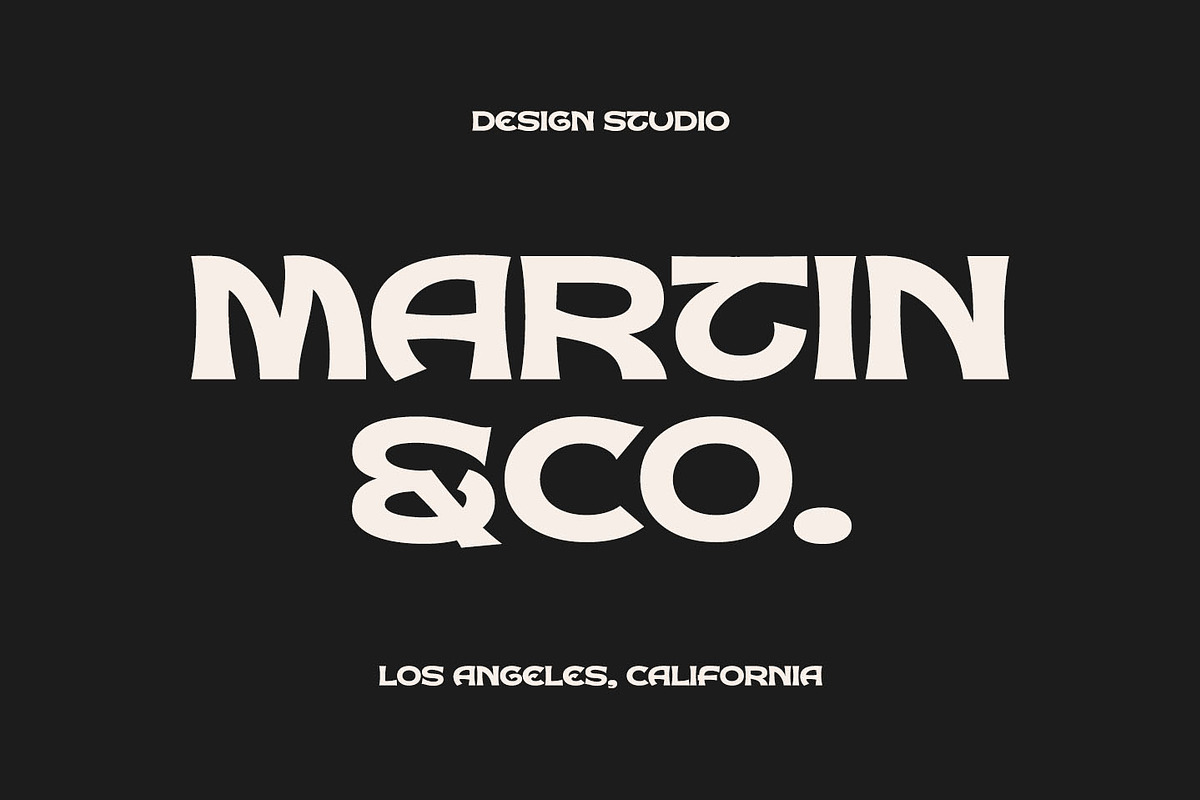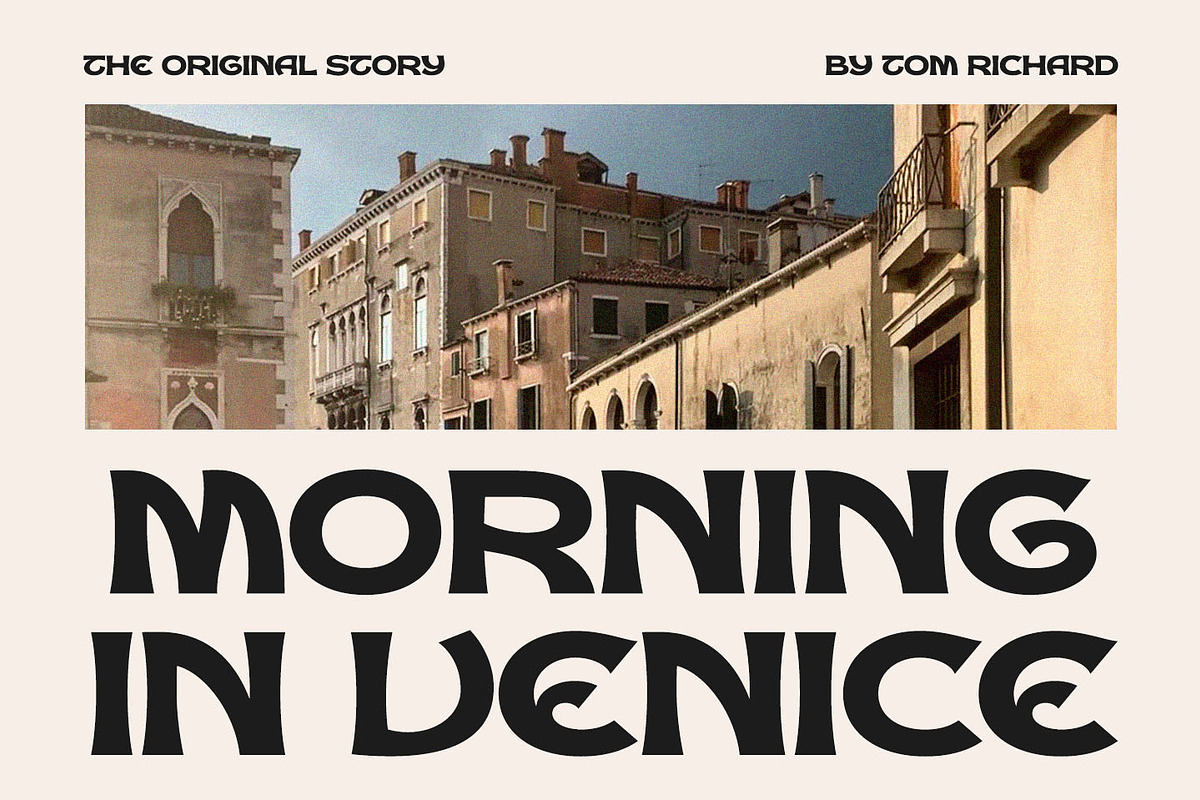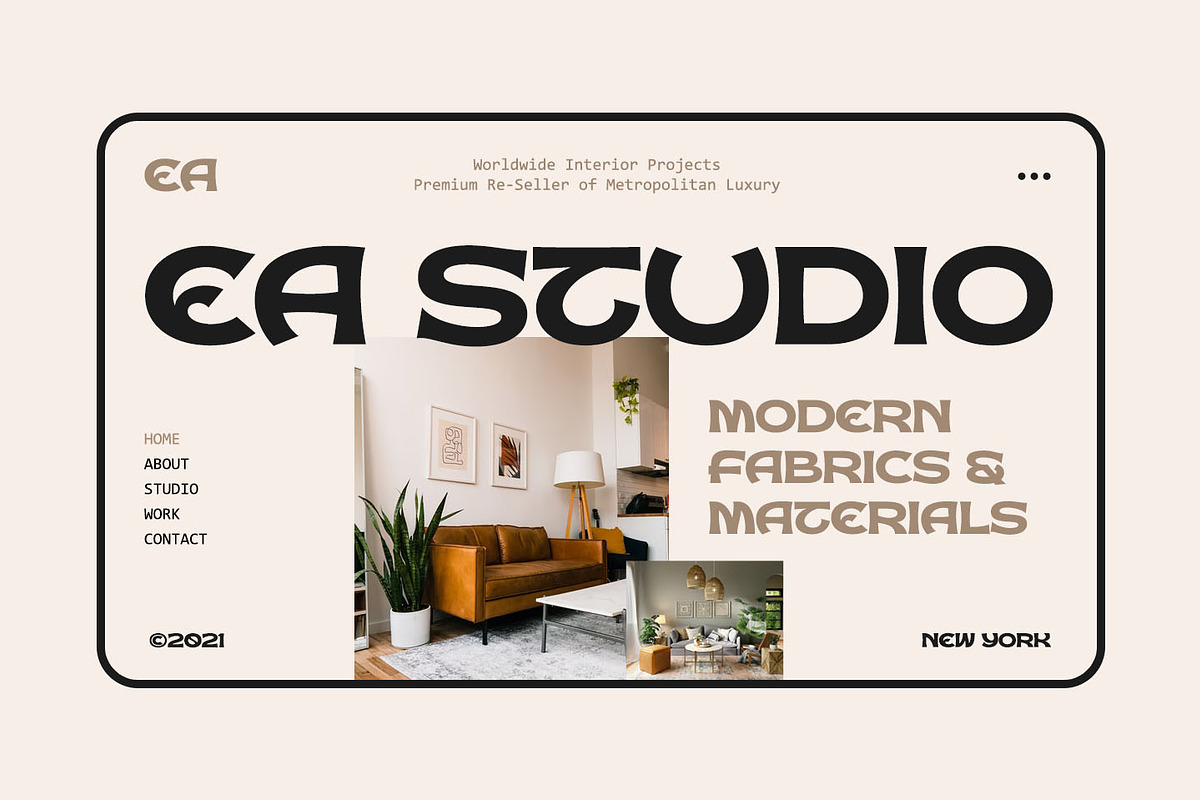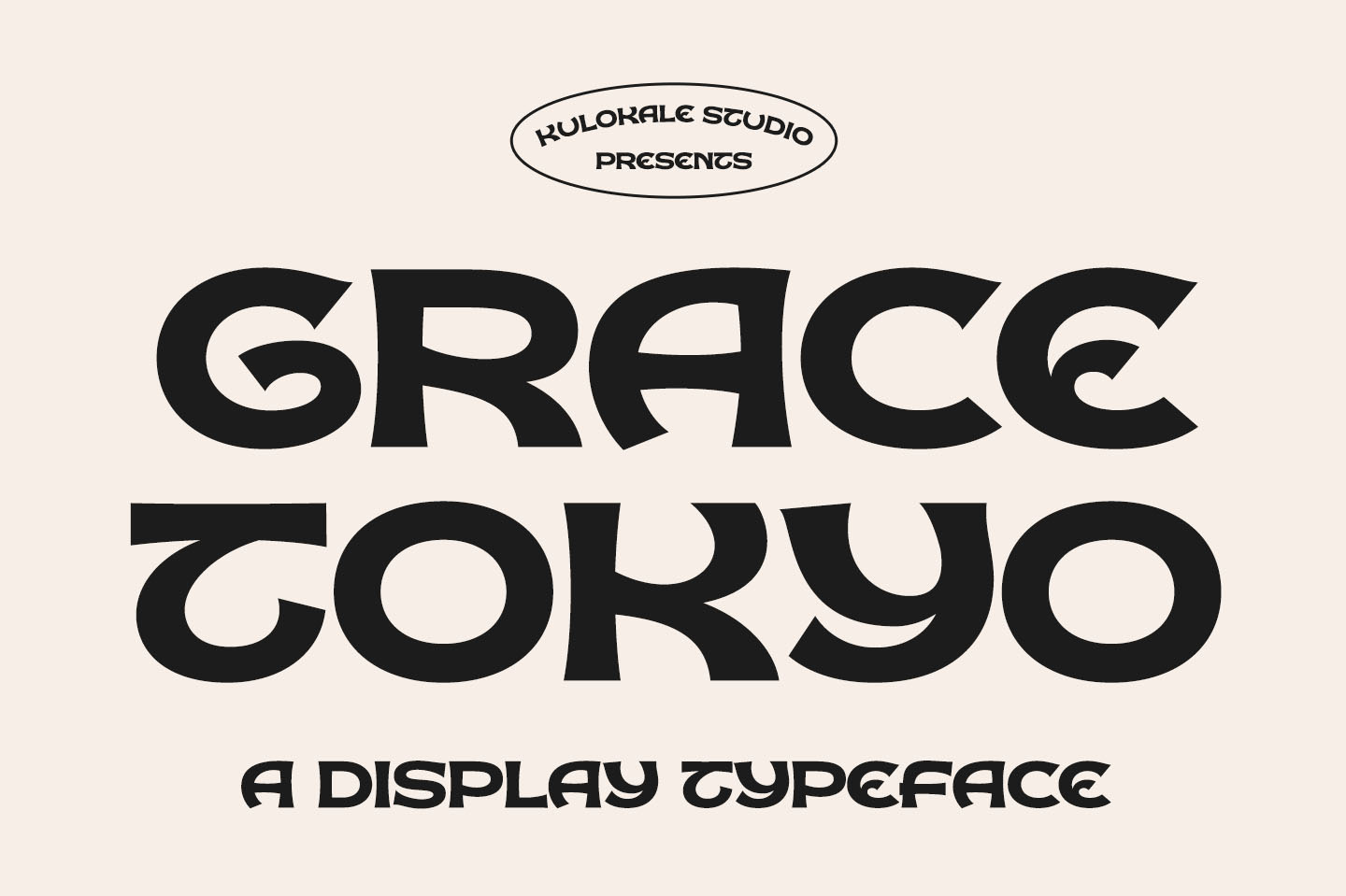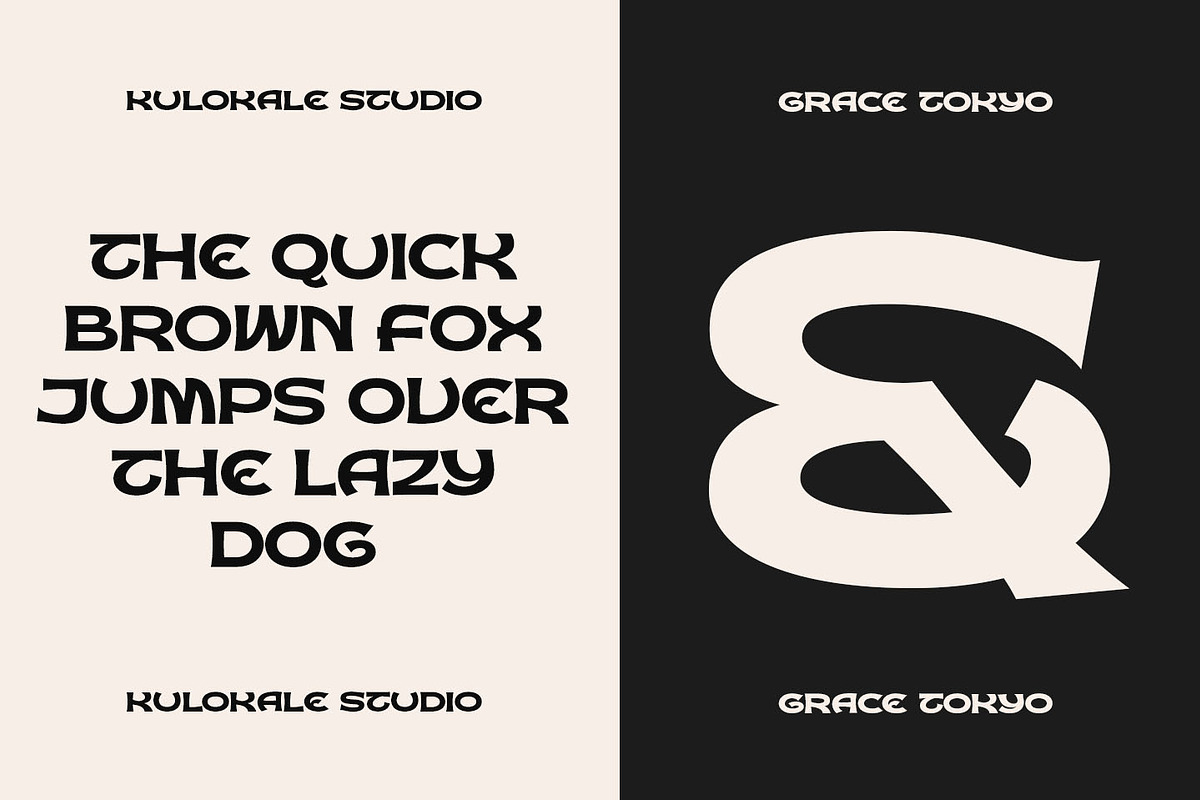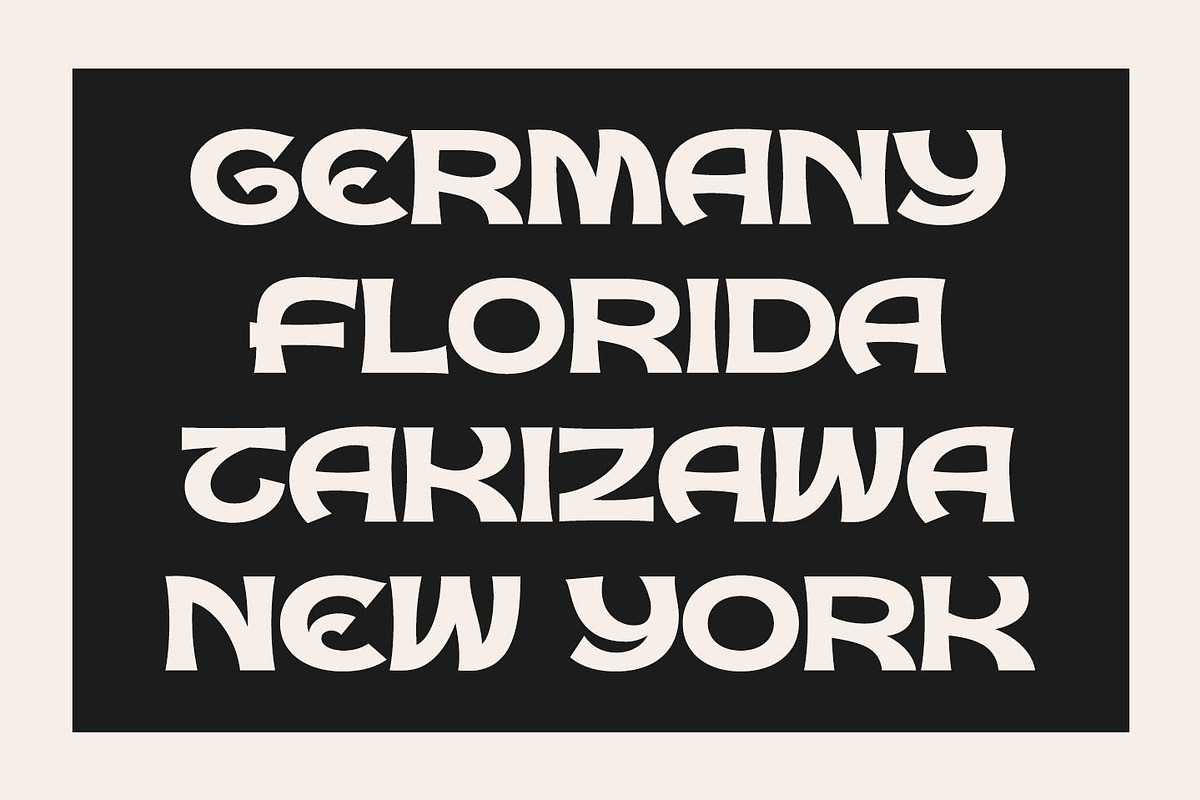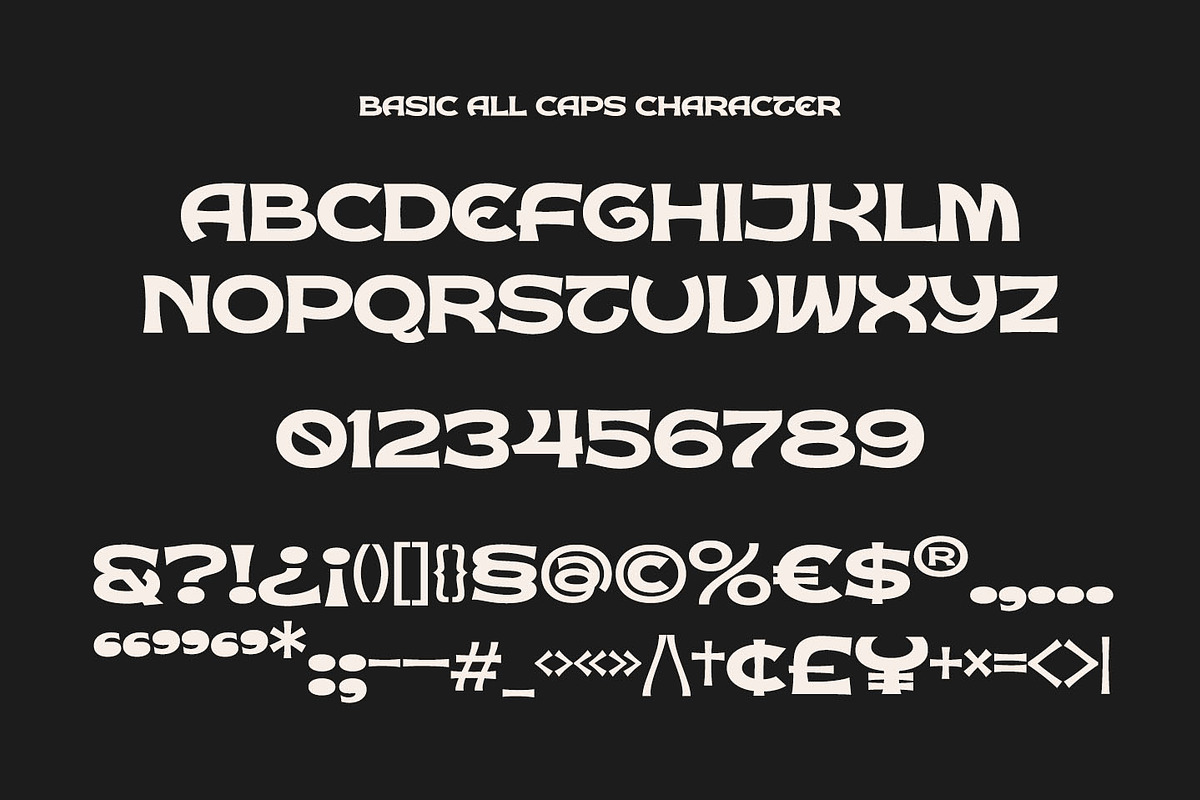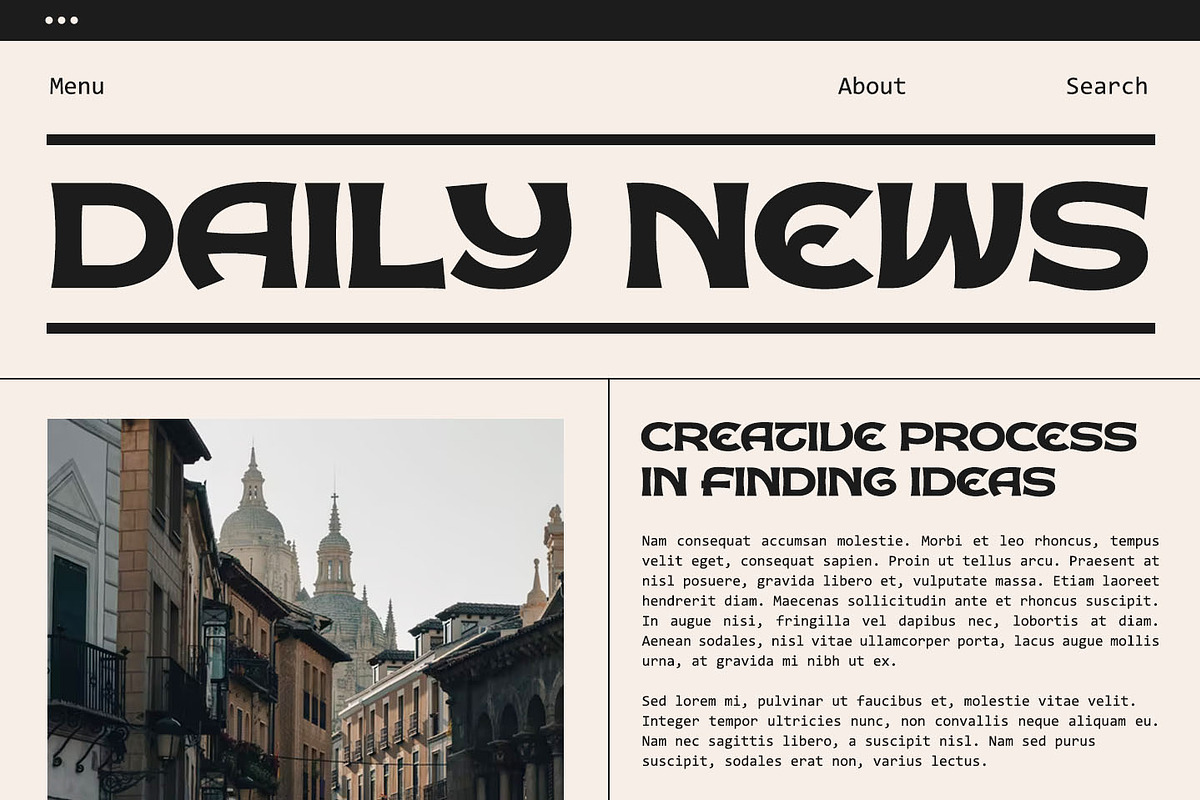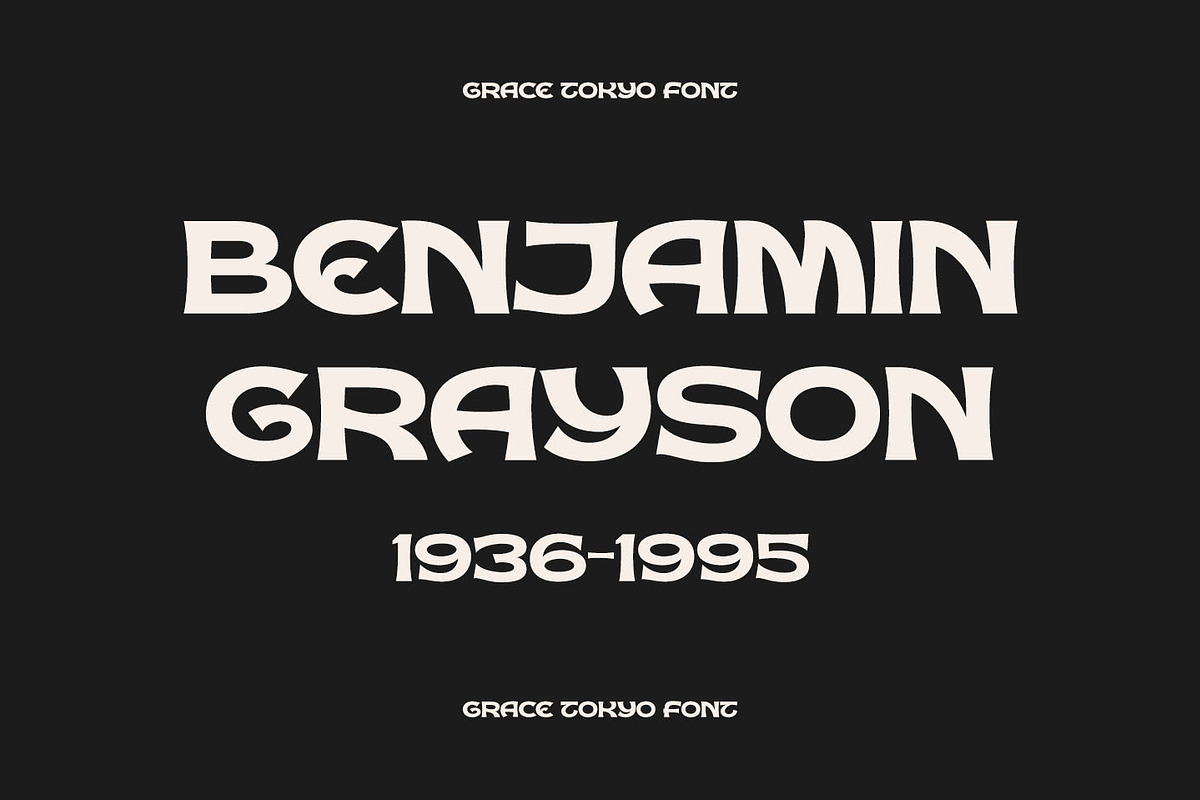
Grace Tokyo - Display Sans Font
Grace Tokyo is a modern display sans font. Grace Tokyo is well-suited for advertising, branding, logotypes, packaging, titles, headlines and editorial design. This font comes in two styles, Regular and Oblique Version.